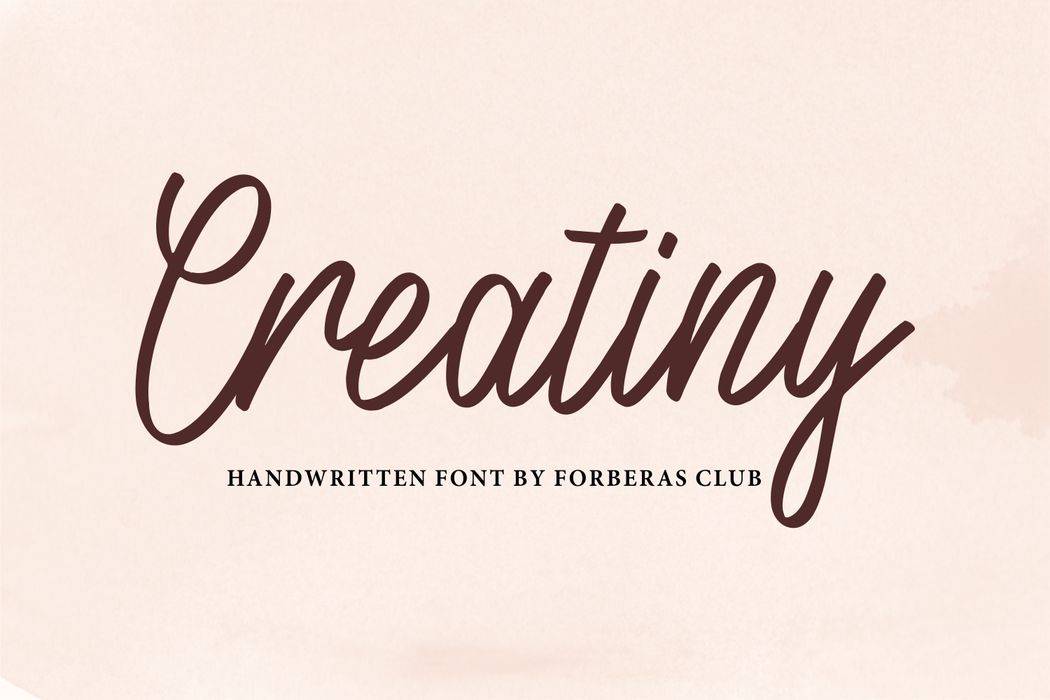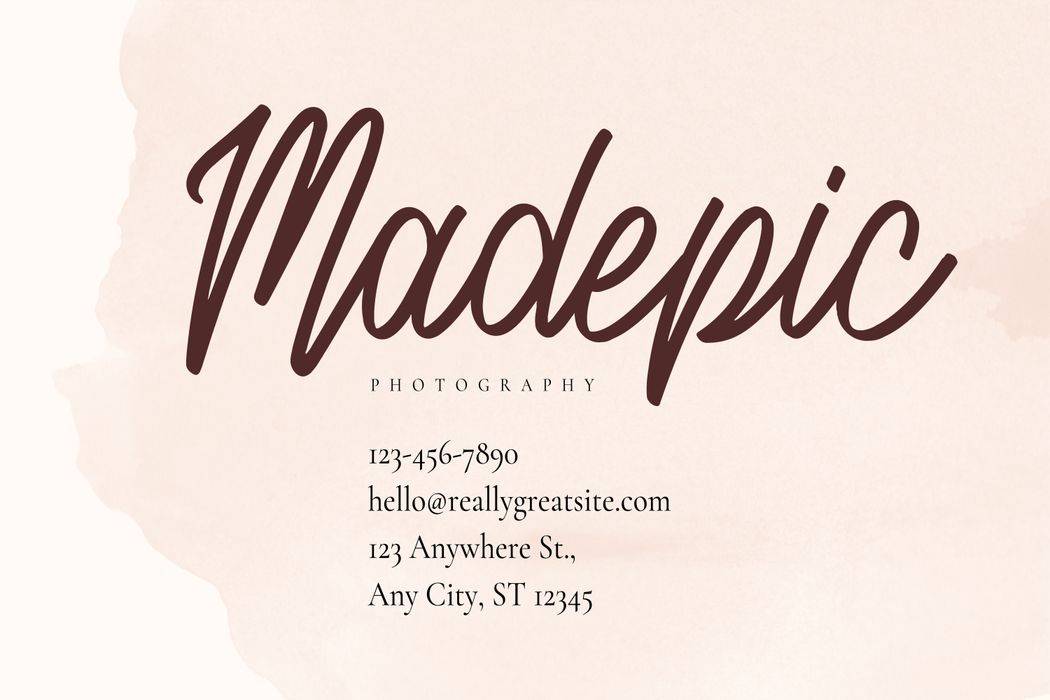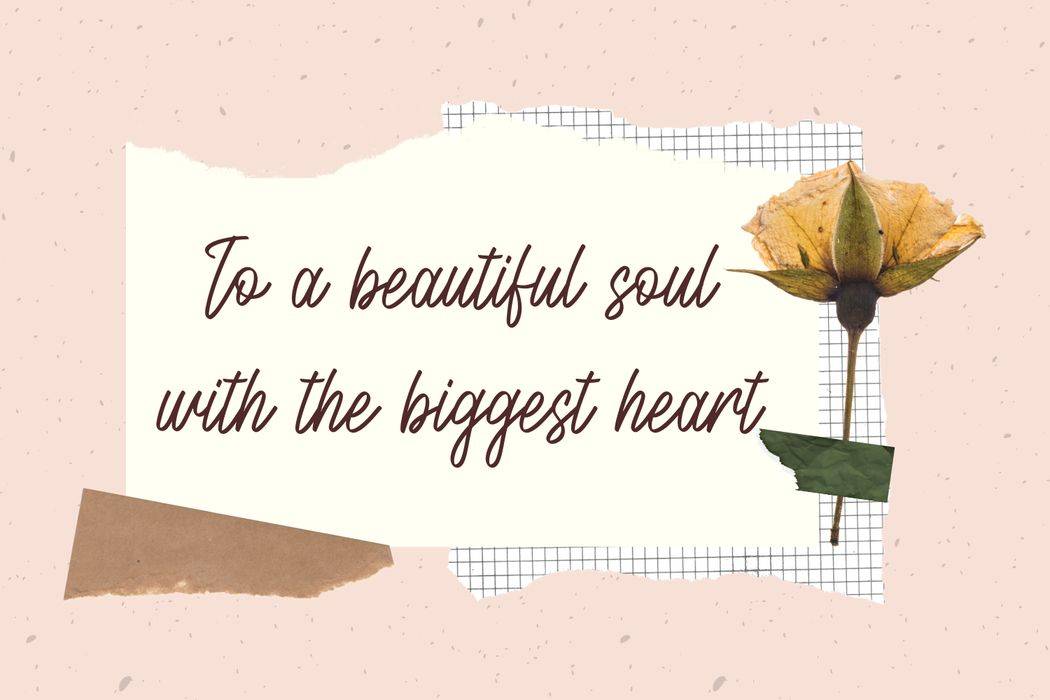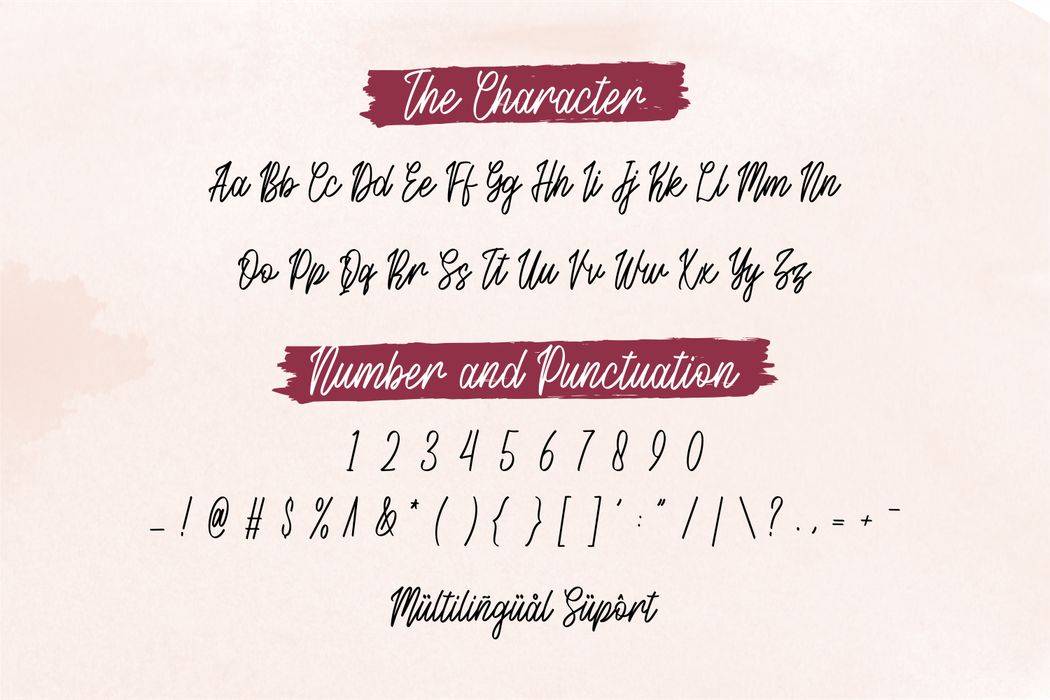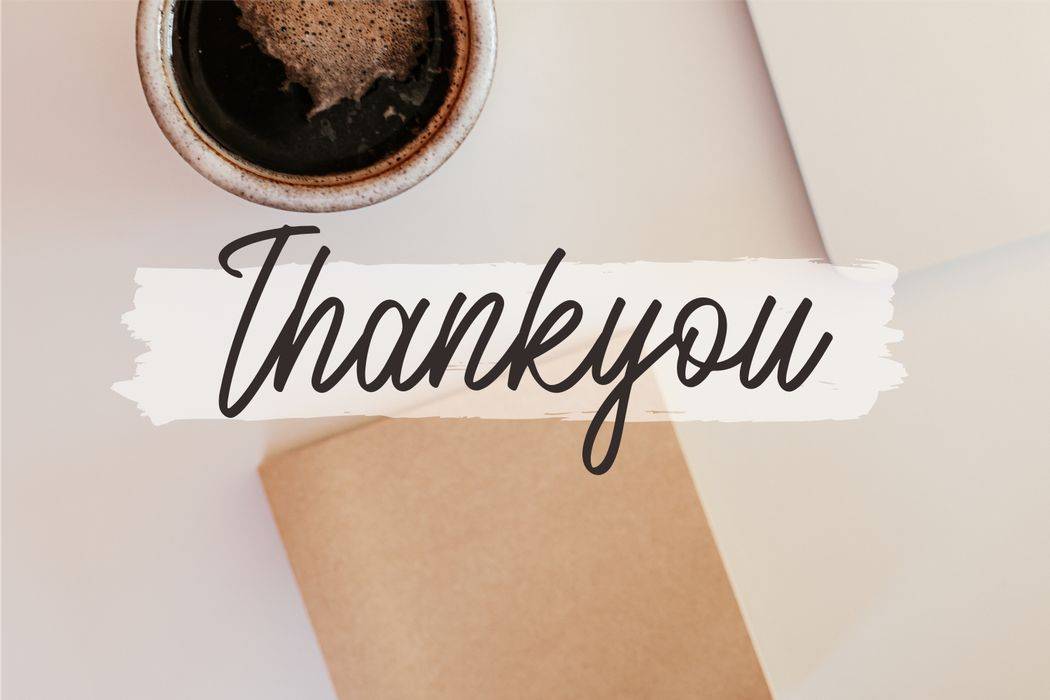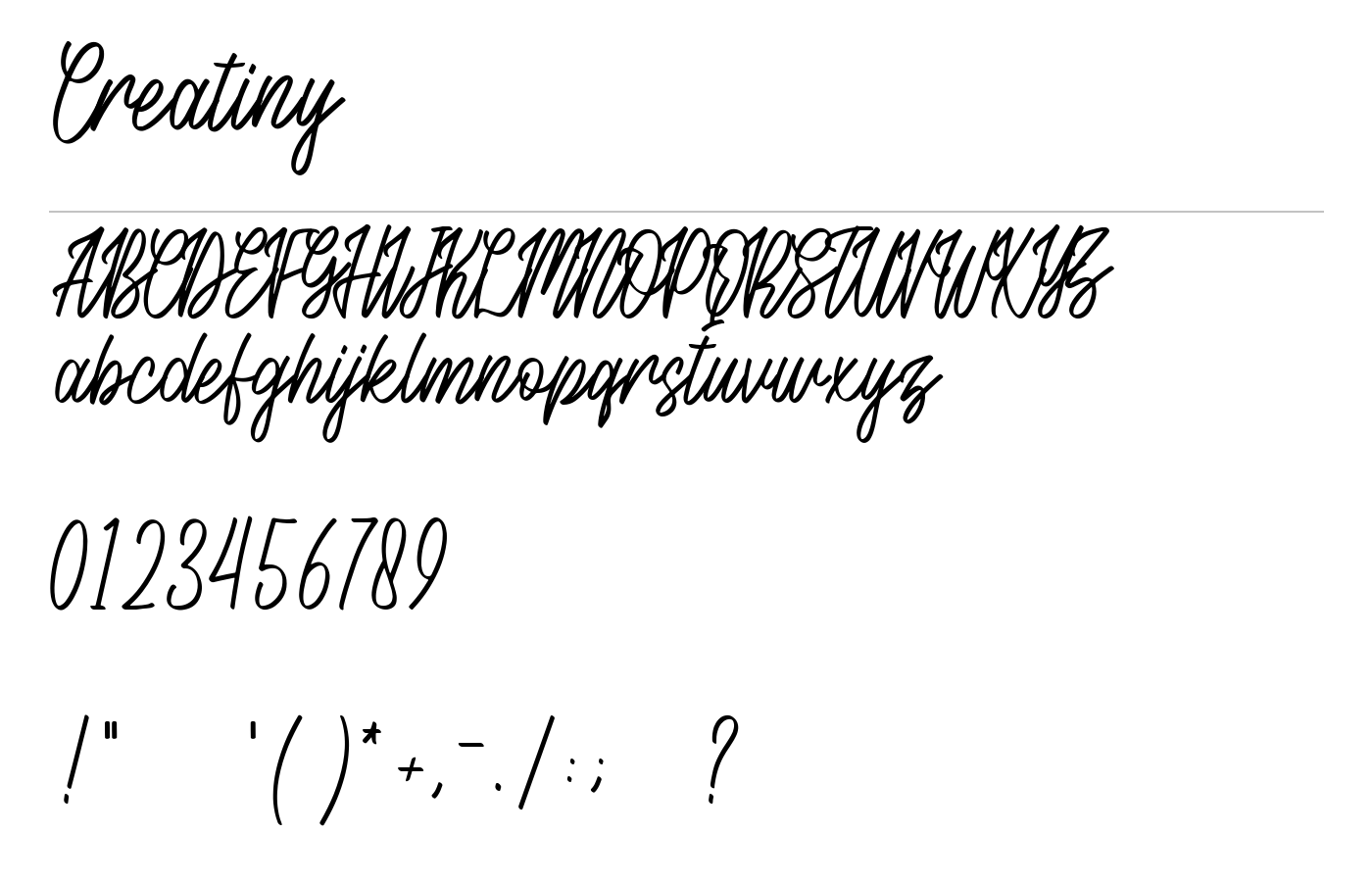
Creatiny is a stylish, casual script font with a slender weight and a smooth, flowing stroke that mimics elegant handwriting. Its tall x-height and slightly condensed letterforms give it a lively, approachable personality, making it ideal for creative branding, invitations, and expressive headlines where a personal touch is desired. This font works well when you want to convey warmth and creativity with a modern, graceful flair.
Creatiny Font
About Creatiny Font
| Font family | Creatiny Font |
| Designer | Forberas |